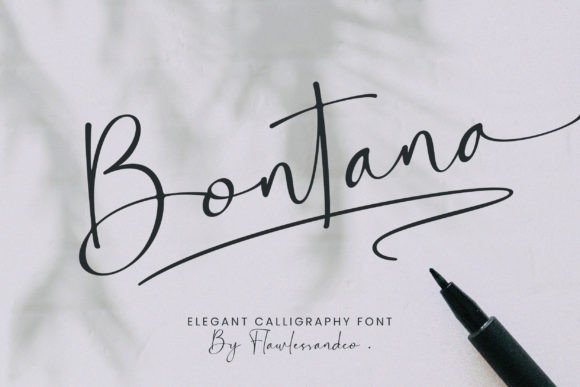
Introducing “Bontana” – An Elegant Calligraphy Font
I’ll never forget the design project that led me to discover Bontana. I was working on a luxury brand campaign, and my client requested a font that exuded elegance and sophistication. I scoured the internet, tried countless fonts, but nothing seemed quite right. That was until I stumbled upon Bontana. Its flowing strokes and graceful curves instantly captured the essence of the brand, and I knew I’d found the perfect fit.
The Beauty of Bontana
Bontana is an exquisite calligraphy script font that embodies refinement and luxurious style. Its timeless beauty makes it perfect for designers, crafters, and creative hobbyists looking to elevate their designs. With Bontana, you can add a touch of sophistication to your projects, whether it’s a wedding invitation, a logo, or a social media graphic.
• ✨ Elegant and refined design
• ✅ Highly versatile for various design projects
• 💫 Beautifully crafted OpenType features
• 👍 Excellent for use in logos, branding, and advertising
While Bontana is an exceptional font, there are a few things to keep in mind:
• ⚠️ Some characters may require manual kerning for optimal spacing
• 🤔 Limited availability of certain glyphs in certain platforms
The Story Behind Bontana
Bontana was crafted by a talented type designer who drew inspiration from traditional calligraphy and modern typography. The goal was to create a font that exudes elegance and sophistication while remaining versatile and easy to use.
Q: What type of projects is Bontana best suited for?
Bontana is perfect for luxury brands, weddings, high-end advertising, and any project requiring an elegant, sophisticated touch.
Q: Does Bontana come with OpenType features?
Yes, Bontana includes a range of OpenType features, such as stylistic alternates, glyphs, and ligatures, to enhance your design work.